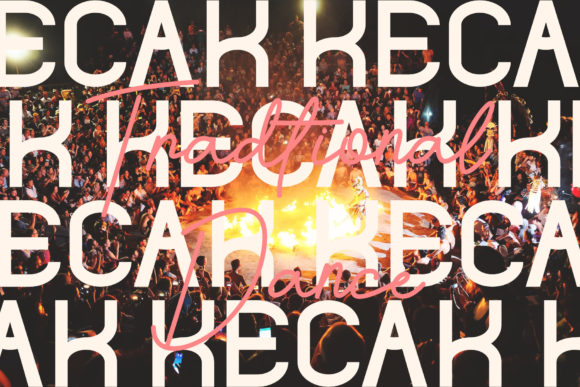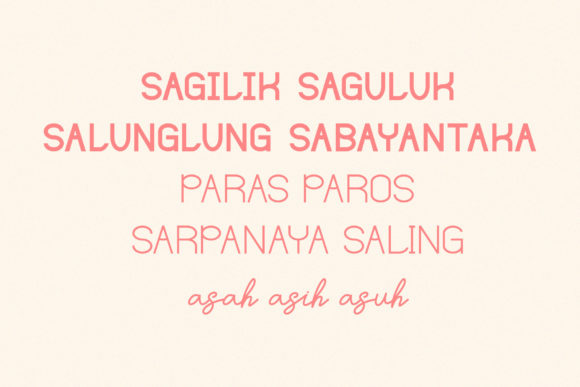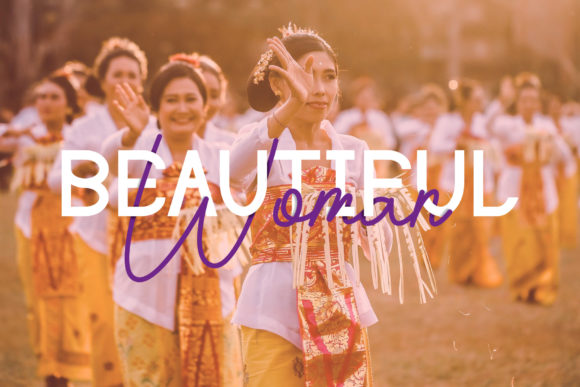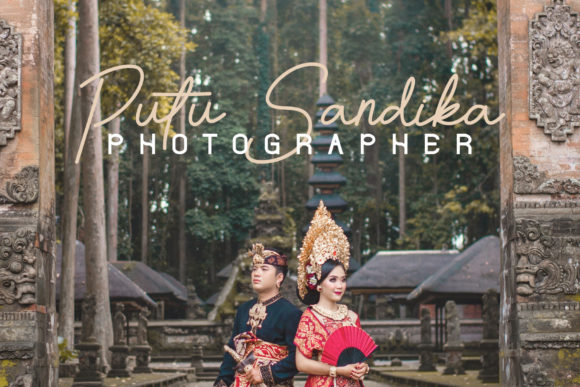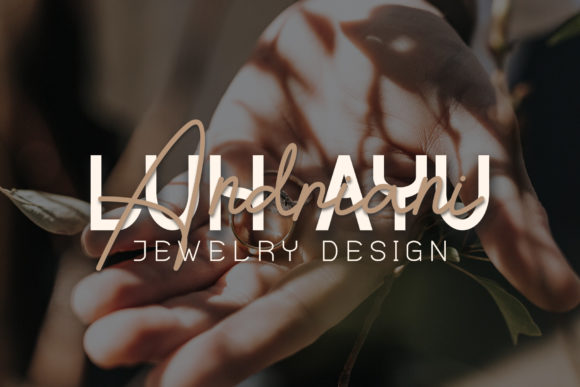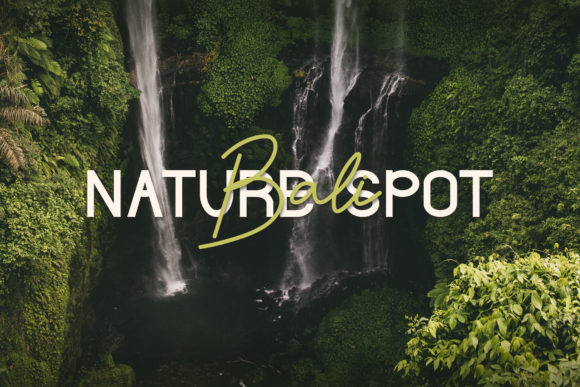
Brighten Up Your Designs with the Bali Culture Font
Have you ever sat down with a blank page and a blank mind, only to be struck by the perfect idea? For me, it was a sunny afternoon, surrounded by lush greenery and the soothing sounds of the ocean. And then it hit me – the perfect font to add a touch of tropical chic to my designs. That’s when I stumbled upon the Bali Culture Font, a stunning duo of display and script fonts that are sure to bring a smile to your face.
The Bali Culture Font is a beautiful combination of traditional and modern elements, making it the perfect addition to any craft or design project. Whether you’re creating invitations, greeting cards, or digital art, this font is sure to add a unique and eye-catching touch. And with its PUA encoding, you’ll have access to all the glyphs and swashes you need to take your designs to the next level.
Bali Culture Font Key Features
- Font Family: Bali Culture Font is a custom-designed font family with a unique blend of traditional Balinese and modern elements.
- Character Set: The font family includes a comprehensive set of characters, including uppercase and lowercase letters, numbers, and punctuation marks.
- Unique Characteristics: The Bali Culture Font features intricate details, ornate flourishes, and unique letterforms that evoke the rich cultural heritage of Bali.
Bali Culture Font Review
Overall, I think the Bali Culture Font is a great addition to any designer’s toolkit. Here are some things that I think work well:
- ✨ Unique and interesting design elements, such as the use of curves and traditional Indonesian motifs, make it stand out from other fonts.
- ✨ The font is highly legible, even at small sizes, making it perfect for body text or titles.
- ✨ It’s a great choice for designers looking to add a touch of cultural flair to their projects.
However, I do think there are a few limitations to consider:
- ⚠️ The font may not be suitable for all projects, particularly those that require a more modern or minimalist aesthetic.
- ⚠️ Some users may find the font too ornate or busy, particularly in large quantities.
Overall, I think the Bali Culture Font is a solid choice for designers looking to add some visual interest to their projects. While it may not be the right choice for every project, it’s definitely worth considering for those that require a unique and culturally-inspired aesthetic.
The Bali Culture Font is ideal for creating tropical and cultural designs, such as:
Travel brochures and marketing materials
Cultural and spiritual event promotions
Alternatives to Bali Culture Font
Pacifico is a modern calligraphy font that conveys a sense of elegance and sophistication. It is suitable for use in designs that require a touch of luxury and refinement. Pacifico is a more contemporary alternative to Bali Culture Font, with a more fluid and expressive feel.
Great Vibes is a beautiful, handwritten font that captures the essence of a tropical island getaway. It is perfect for use in designs that require a carefree and playful vibe. Great Vibes is similar to Bali Culture Font in its organic feel, but has a more laid-back and relaxed tone.
Dancing Script is a elegant, cursive font that exudes a sense of romance and sophistication. It is suitable for use in designs that require a touch of whimsy and fantasy. Dancing Script is a more dramatic alternative to Bali Culture Font, with a more flowing and expressive feel.